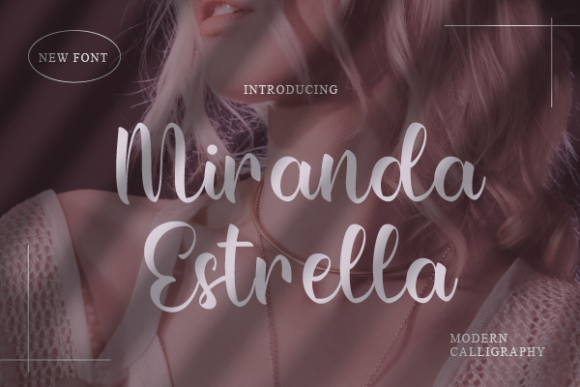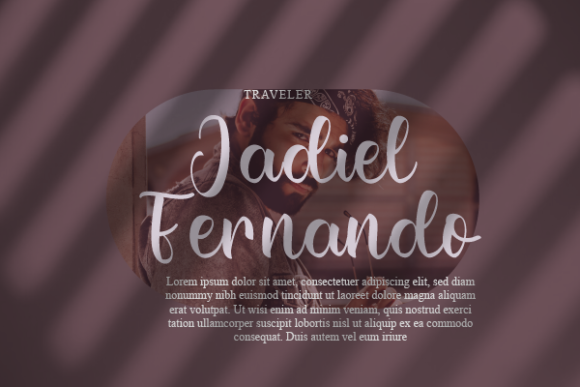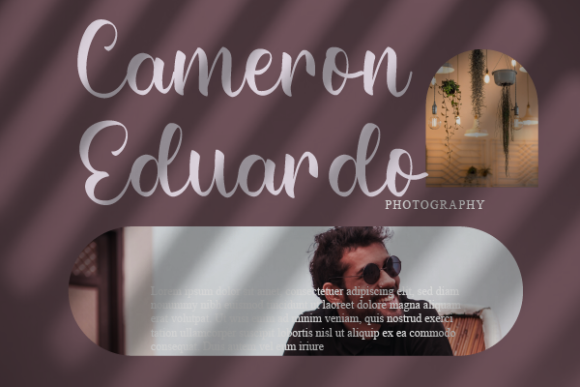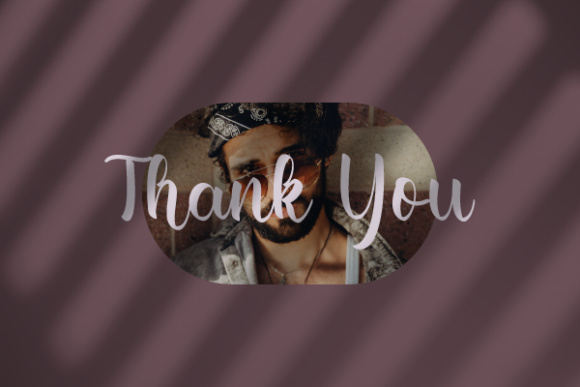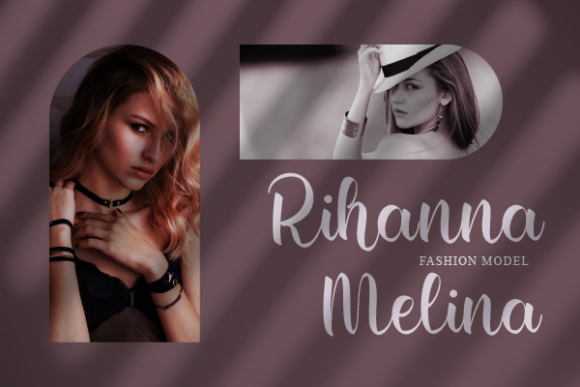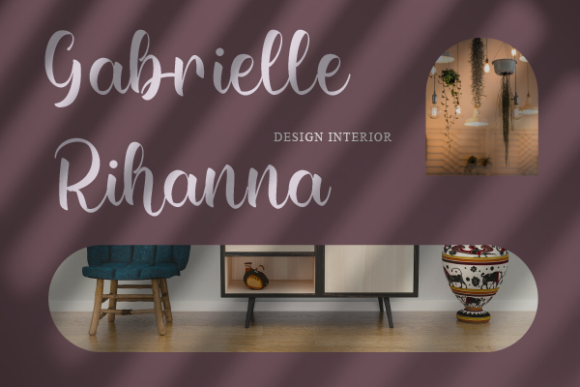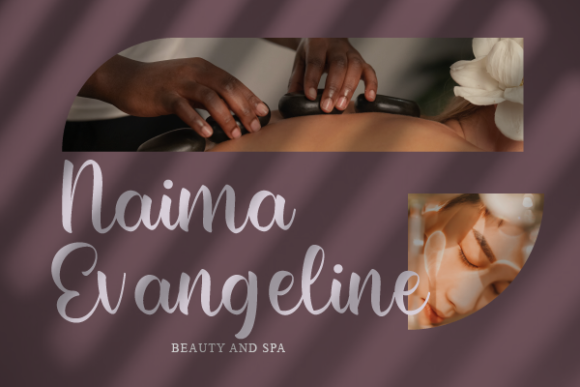
Miranda Estrella Font
About Miranda Estrella Font
Miranda Estrella is a gorgeous, round lettered handwritten font. It looks stunning on wedding invitations, thank you cards, quotes, greeting cards, logos, business cards and every other design which needs a handwritten touch.